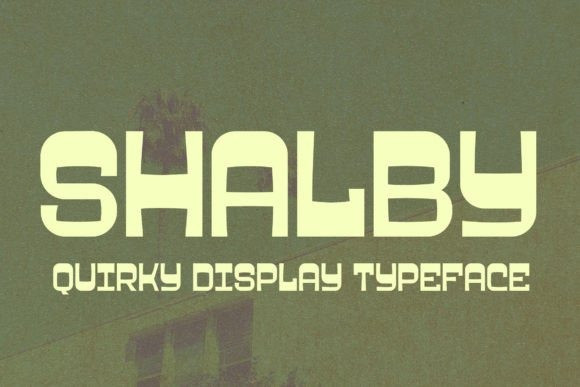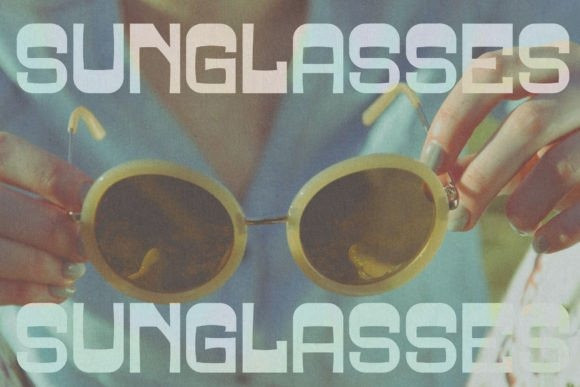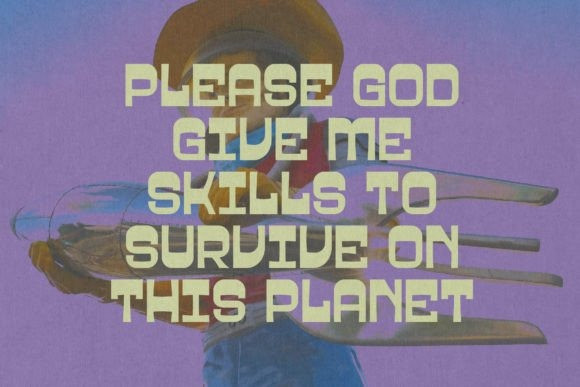
Shalby Font
This typeface is perfect for an elegant & luxury logo, book or movie title design, fashion brand, magazine, clothes, lettering, quotes, and so much more.